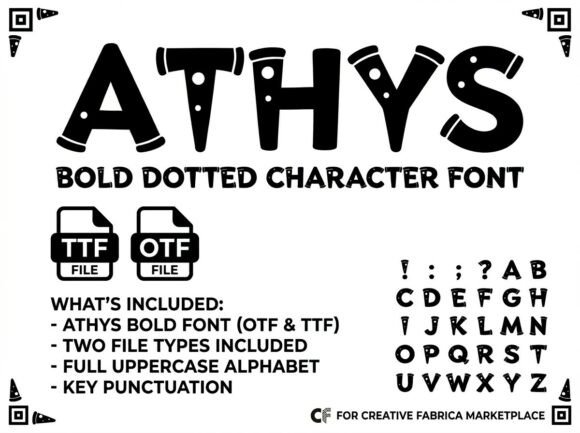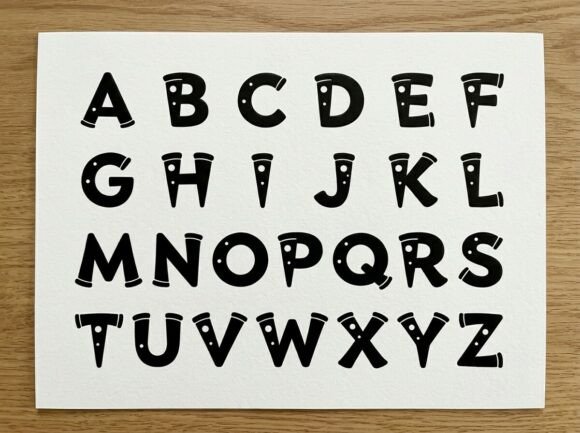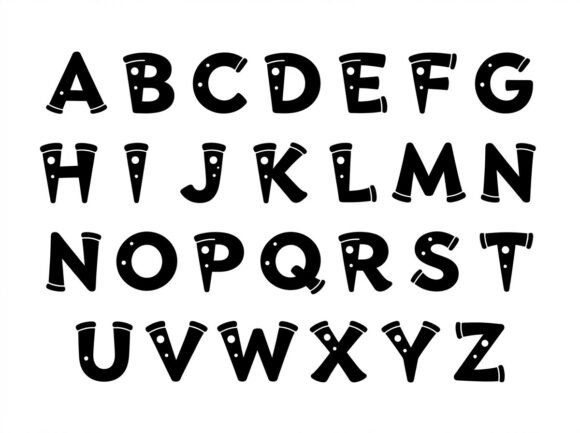
Introducing Athys Font: Elevate Your Creative Projects with a Decorative Display Font
Are you tired of using the same old fonts for your creative projects? Do you want to add a touch of elegance and sophistication to your designs? Look no further than Athys Font, a decorative display font designed to be the centerpiece of any layout. With its distinct artistic elements and strong character, Athys Font is perfect for creators who want to break away from the ordinary and elevate their designs to the next level.
What Makes Athys Font Special?
Athys Font is a unique and powerful tool for designers and crafters. Its bold and artistic elements make it perfect for creating eye-catching headlines, logos, and branding materials. The font’s strong character and high-end aesthetic make it ideal for projects that require a touch of sophistication and elegance. Whether you’re working on a packaging design, a website, or a marketing campaign, Athys Font is sure to deliver a professional and stylish look.
Key Features of Athys Font
- Decorative Display Font: Athys Font is designed to be the centerpiece of any layout, making it perfect for headlines, titles, and decorative initials.
- Distinct Artistic Elements: The font’s unique artistic elements set it apart from other fonts, making it perfect for creators who want to add a touch of personality to their designs.
- Strong Character: Athys Font has a strong and confident character that is sure to make a statement in any design.
- High-End Aesthetic: The font’s high-end aesthetic makes it perfect for projects that require a touch of sophistication and elegance.
It’s worth noting that Athys Font is an all-caps display typeface. By design, it does not contain lowercase letters, making it a powerful tool for logos, titles, and decorative initials. This means that you’ll get the most out of Athys Font by using it for headlines, titles, and other display text.
How to Use Athys Font in Your Designs
Athys Font is perfect for a wide range of design projects, including:
- Headlines and Titles: Use Athys Font to create eye-catching headlines and titles that grab attention and make a statement.
- Logos and Branding: Use Athys Font to create unique and memorable logos and branding materials that reflect your brand’s personality and style.
- Packaging Design: Use Athys Font to add a touch of elegance and sophistication to your packaging designs.
- Websites and Marketing Campaigns: Use Athys Font to create high-end and professional-looking websites and marketing campaigns that stand out from the crowd.
Athys Font is a powerful and decorative display font that’s perfect for designers and crafters who want to elevate their creative projects to the next level. With its distinct artistic elements, strong character, and high-end aesthetic, Athys Font is sure to deliver a professional and stylish look that’s sure to impress. Whether you’re working on a packaging design, a website, or a marketing campaign, Athys Font is the perfect choice for anyone who wants to add a touch of elegance and sophistication to their designs.